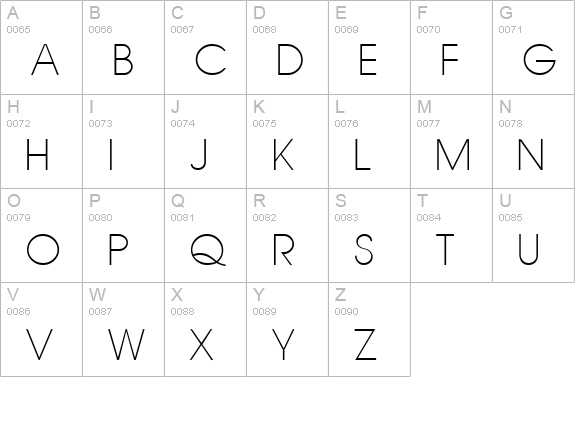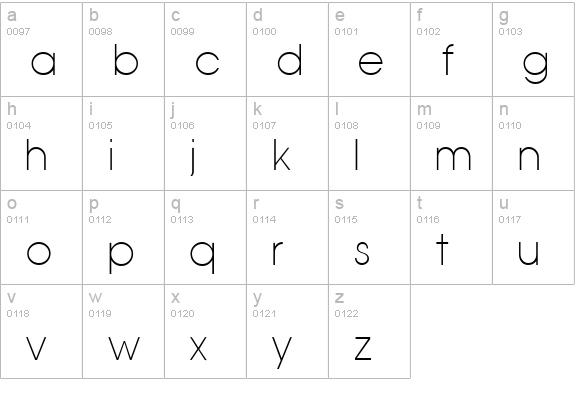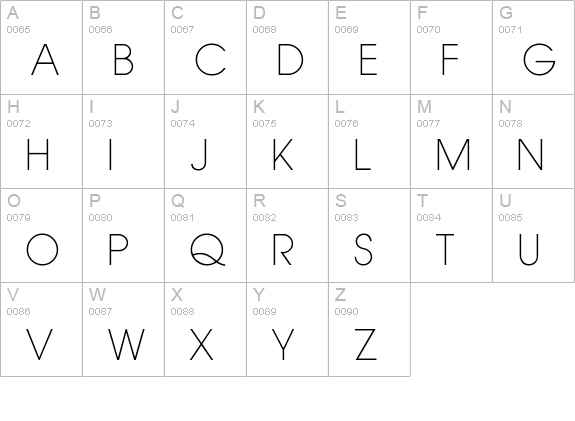
Avant Regular Font Details
Avant Regular is the standard, neutral variant in the Avant typeface family \xE2\x80\x94 well suited to general body text, paragraphs, and standard typographic work.
Avant Regular is a modern and versatile font that is perfect for a wide range of design projects. Its clean lines and elegant curves make it suitable for both print and digital applications. This font exudes a sense of sophistication and professionalism, making it ideal for branding, advertising, and editorial design. The best part about Avant Regular is that it is completely free to download at FontsMarket.com. This means that you can easily access this high-quality font without any cost, making it an excellent choice for designers on a budget or those looking to experiment with a new typeface. With its timeless appeal and effortless readability, Avant Regular is sure to enhance any design project and make a lasting impression on viewers. Download it today and add a touch of class to your creations.